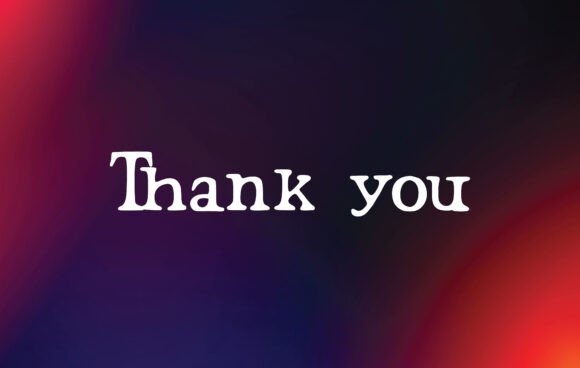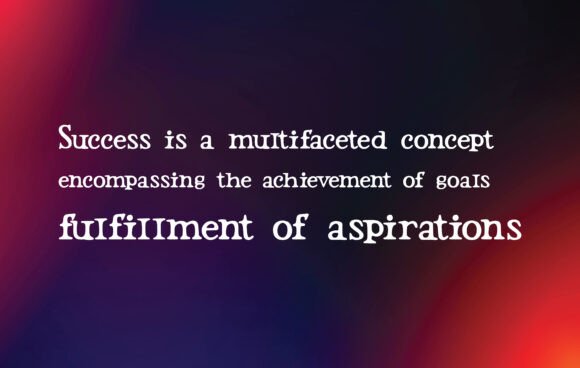
Unlock the Power of Echo Font: Elevate Your Creative Vision
Have you ever stared at a blank page, struggling to bring your creative ideas to life? You’re not alone. We’ve all been there, searching for the perfect tool to spark inspiration. For designers, finding the right font can be the difference between a mediocre design and a masterpiece.
Enter Echo Font, a beautiful and elegant typeface designed to elevate your creative vision. With Echo Font, you’ll be able to create stunning logos, branding, and quotes that leave a lasting impression. Whether you’re a seasoned designer or just starting out, this font is sure to become your go-to choice for any project that requires a touch of sophistication and style.
Key Features of Echo Font
- Unique Characteristics: Echo Font features a unique blend of modern and vintage elements, making it suitable for a wide range of design projects, from minimalist to ornate.
Designer Review: Echo Font
Overall, I have mixed feelings about the Echo Font. On one hand, it has some great features that make it stand out, but on the other hand, it also has some limitations that prevent it from being a top contender in the market.
✨ The Echo Font has a unique, modern aesthetic that is sure to grab attention. Its clean lines and simple design make it perfect for a wide range of applications, from digital displays to print materials.
✨ The font is highly legible, even at small sizes, making it ideal for use in situations where readability is crucial.
✨ The Echo Font is also highly versatile, with a wide range of weights and styles to choose from, making it easy to find the perfect fit for any project.
⚠️ One of the main limitations of the Echo Font is its limited language support. While it does support a number of popular languages, it is not as comprehensive as some other fonts on the market.
⚠️ The font also lacks a true italic version, which can make it difficult to create visually appealing text in certain situations.
While the Echo Font has some great features, its limitations hold it back from being a top choice for designers and developers. However, it is still a solid option for those who need a modern, legible font with a unique aesthetic.
The Echo Font is ideal for creating eye-catching headings and titles. Use it to add a touch of elegance and sophistication to your designs.
Some common use cases for the Echo Font include:
- Headings and titles for presentations and reports.
- Logo design and branding materials.
- Social media posts and ads.
Alternatives to Echo Font for Designers
Montserrat is a modern sans-serif font designed by Julieta Ulanovsky. It’s a versatile font suitable for headings and body text, making it perfect for digital products, magazines, and branding. Montserrat is more geometric and modern compared to Echo Font, which has a more rounded and elegant feel. When to use: For digital products, magazines, and branding that requires a modern and clean look.
Playfair Display is a luxurious and elegant serif font designed by Claus Eggers Sørensen. It’s ideal for headings, titles, and branding that requires a sophisticated and high-end feel. Playfair Display is more ornate and luxurious compared to Echo Font, which has a more subtle and understated look. When to use: For high-end branding, luxury products, and titles that require a sense of elegance and sophistication.